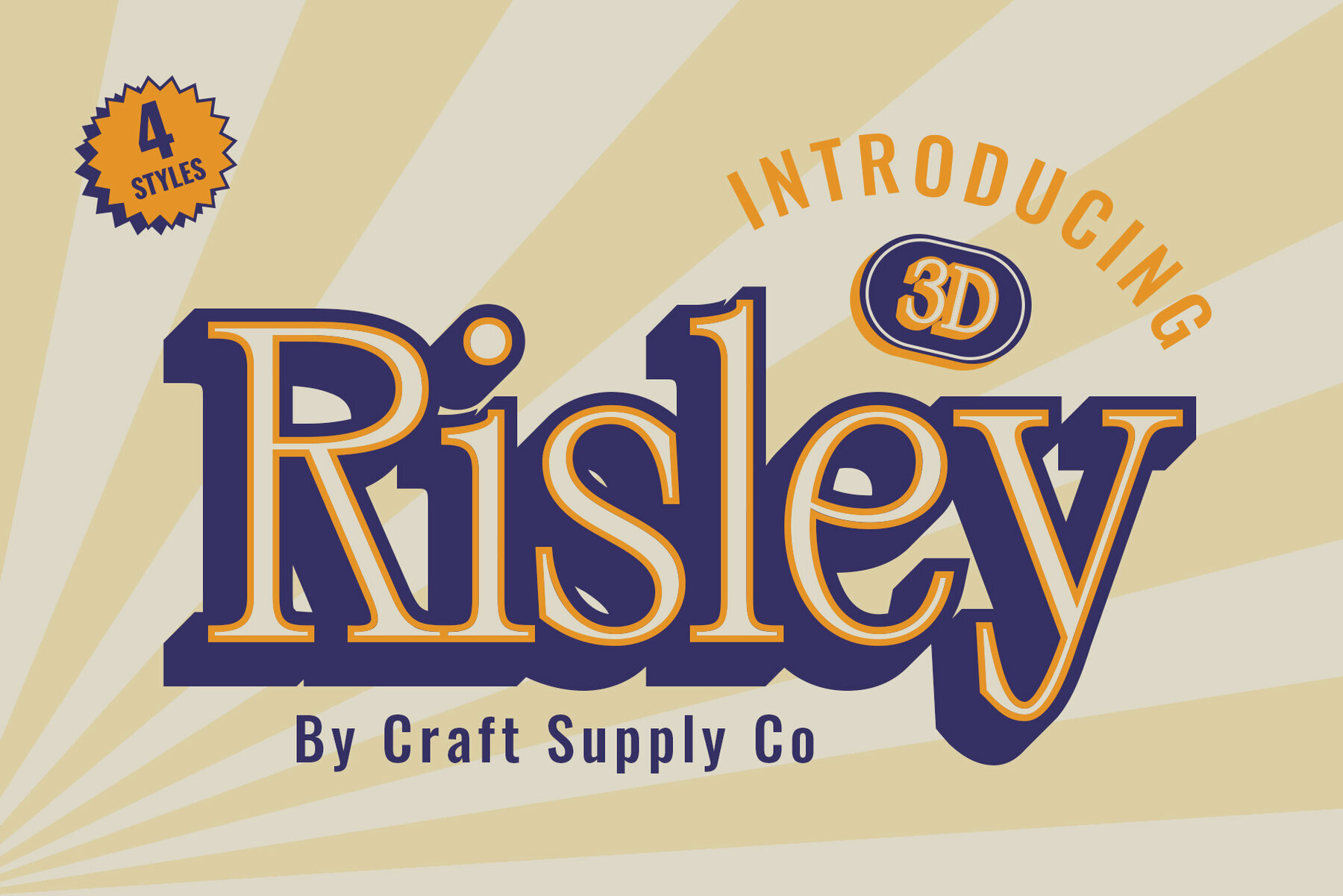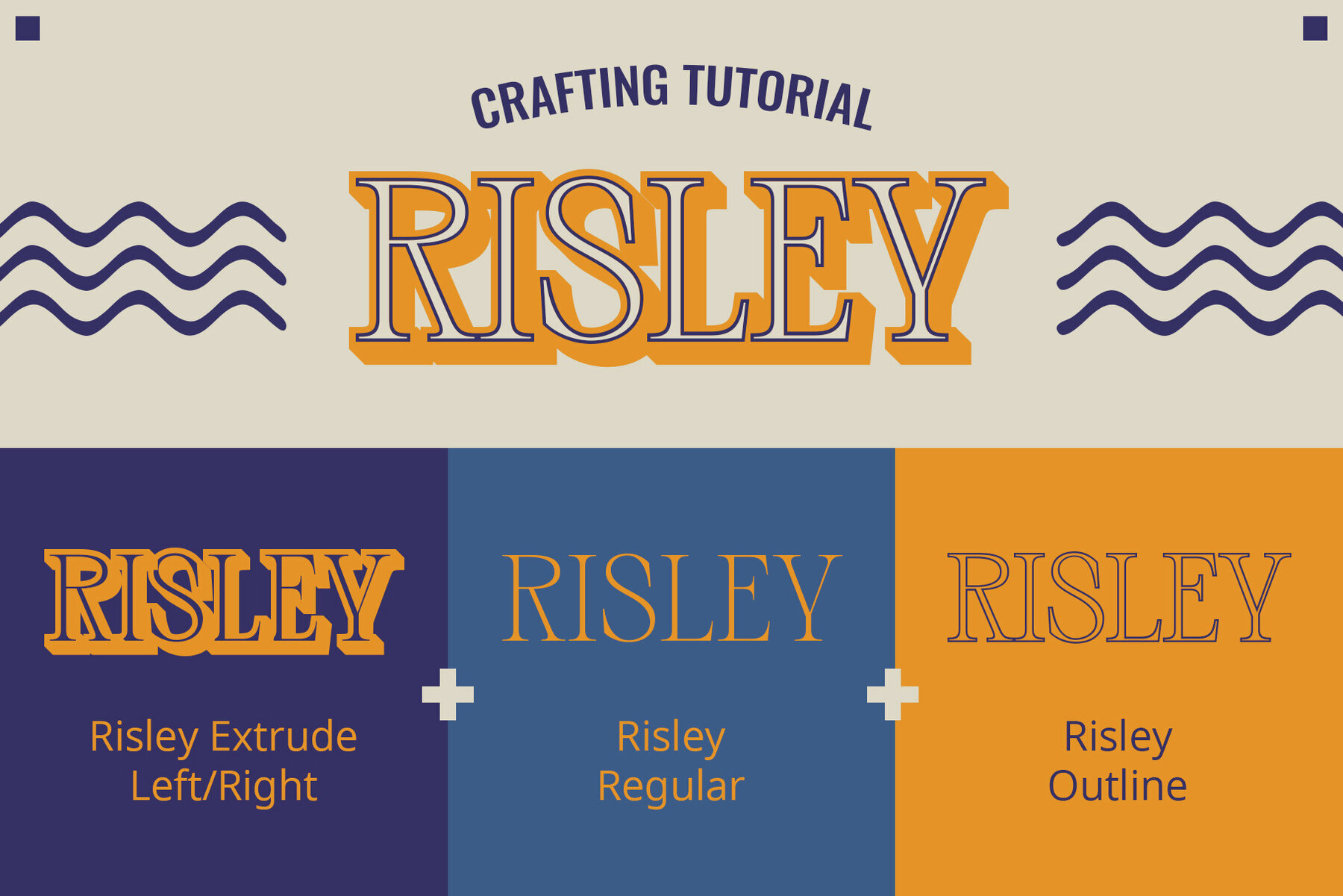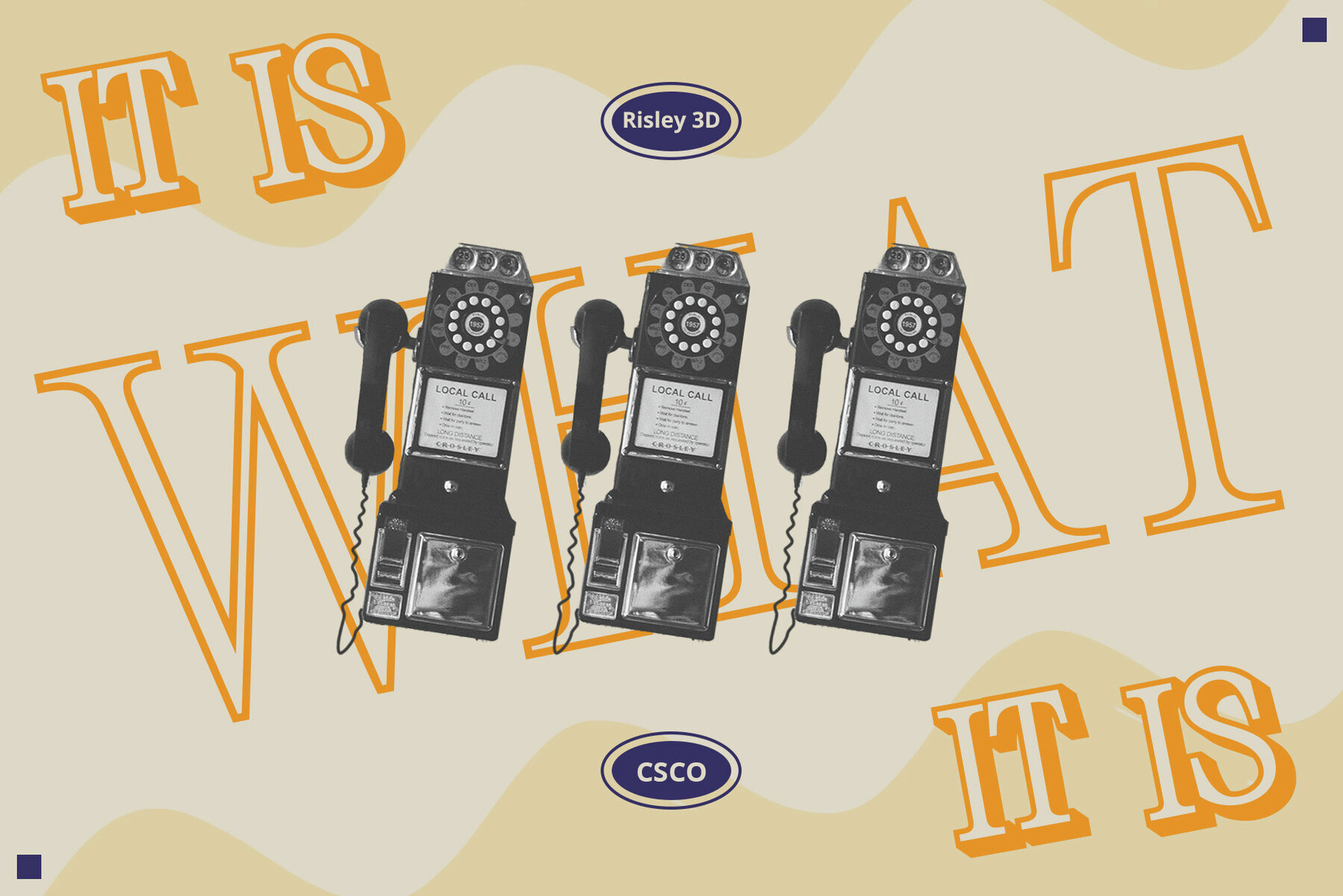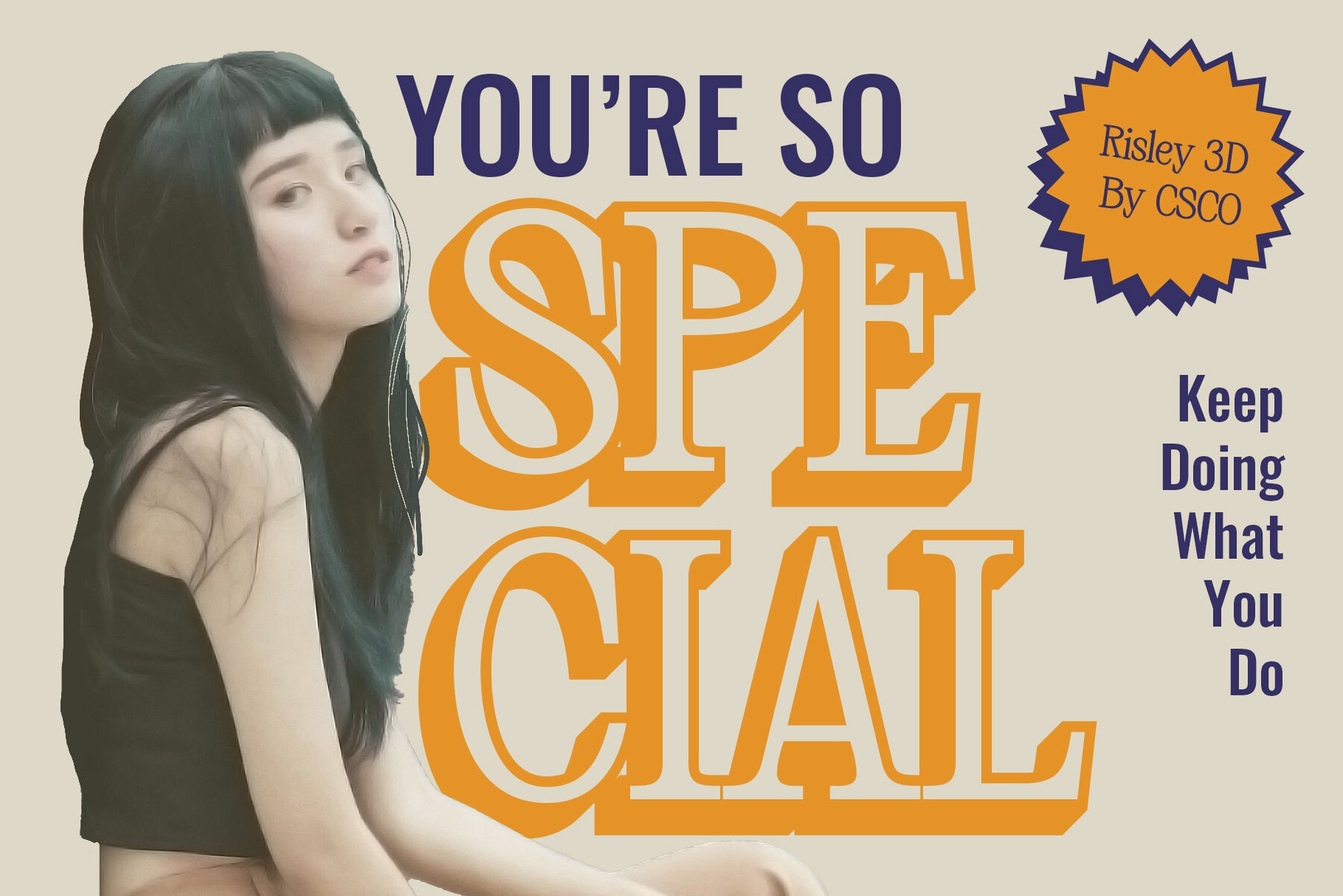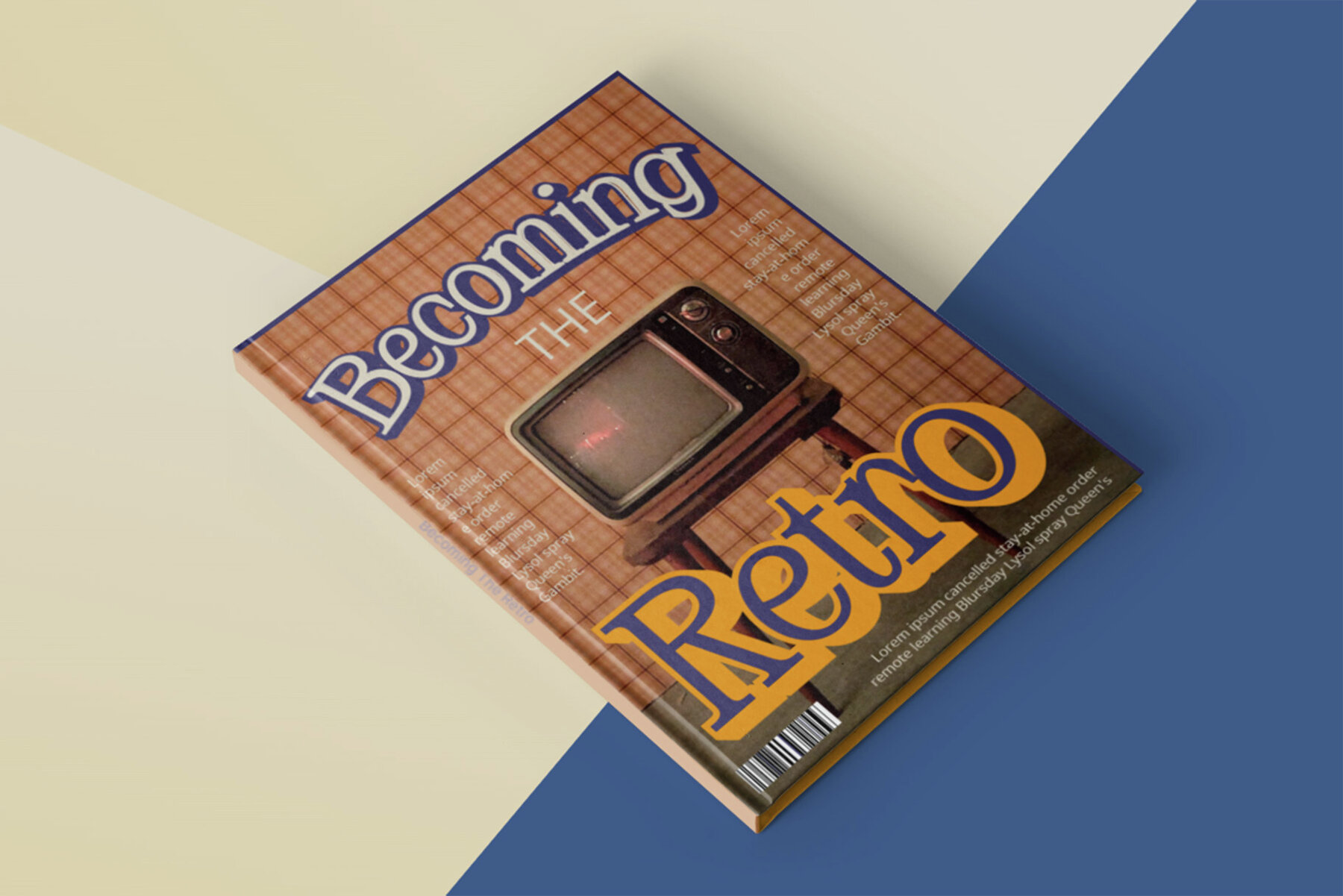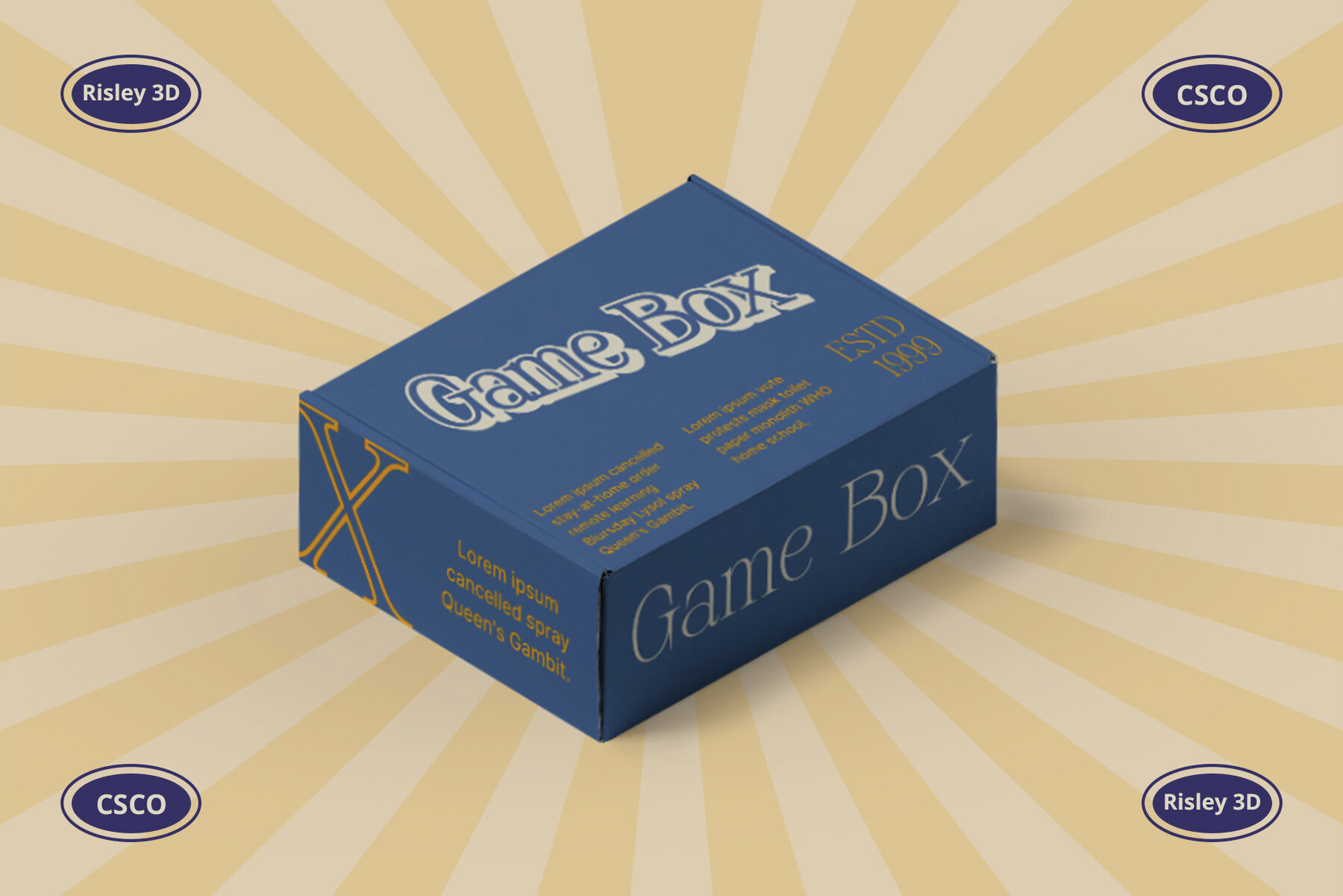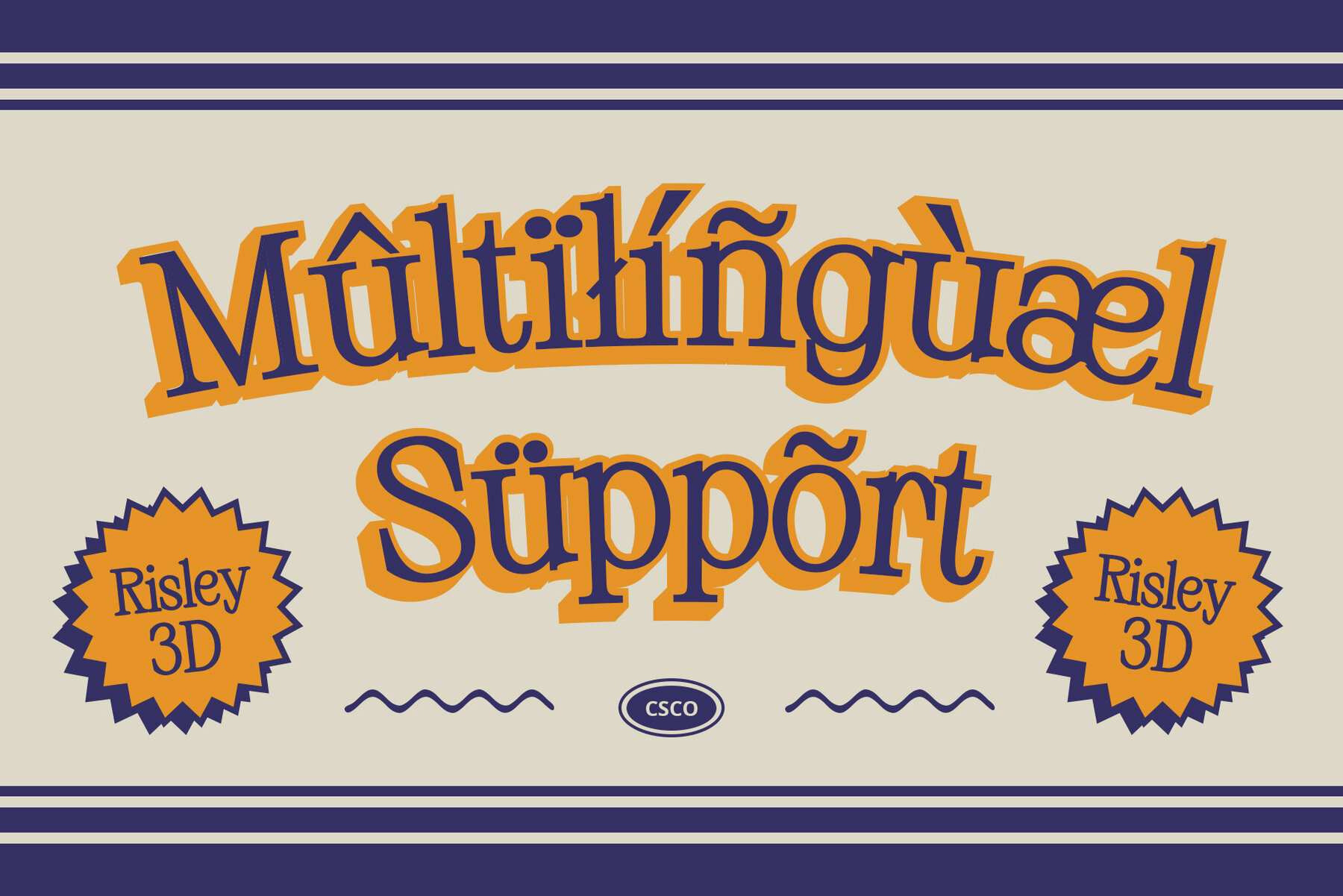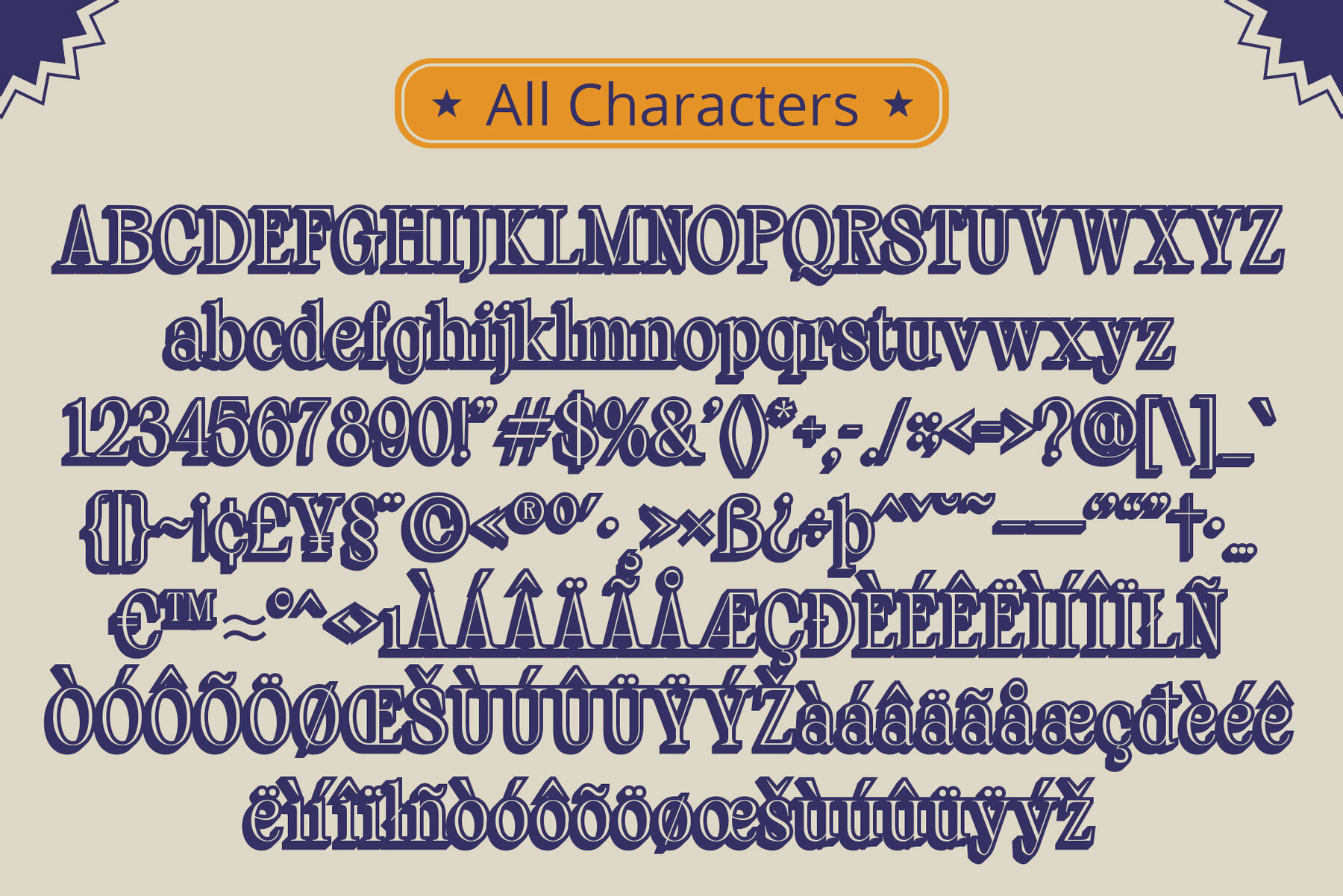
Risley 3D Font
Risley 3D by Craft Supply Co. is a serif font that artfully combines traditional elegance with a modern, three-dimensional flair. This unique typeface introduces formal brackets and sculpted lines, offering a fresh take on classic typography. Each character in Risley 3D is crafted with meticulous extrude and outline techniques, transforming ordinary letters into sculpted masterpieces that capture attention and imagination alike. Beyond its striking depth, Risley 3D stands as a testament to refined sophistication. With precise brackets and clean lines, it is an excellent choice for formal settings where elegance is key. While Risley 3D is ideal for upscale events and corporate environments due to its formal roots, it shines in versatility, adapting to various design needs from invitations to editorial layouts. Risley 3D is user-friendly, requiring no specialized software for use. For inquiries or assistance, feel free to contact Craft Supply Co. We appreciate your support in enhancing your creative projects! Best regards, Craft Supply Co.Risley 3D: A Contemporary Twist to Formality
Sculpted in 3D
Sophistication in Every Curve
Versatile Elegance
Comprehensive Font Features